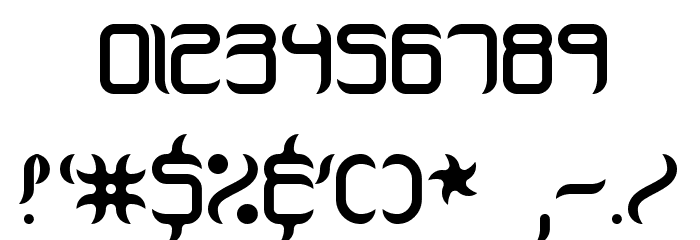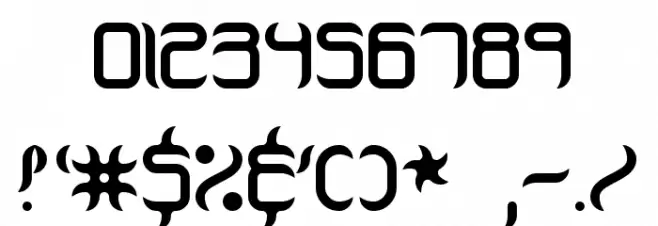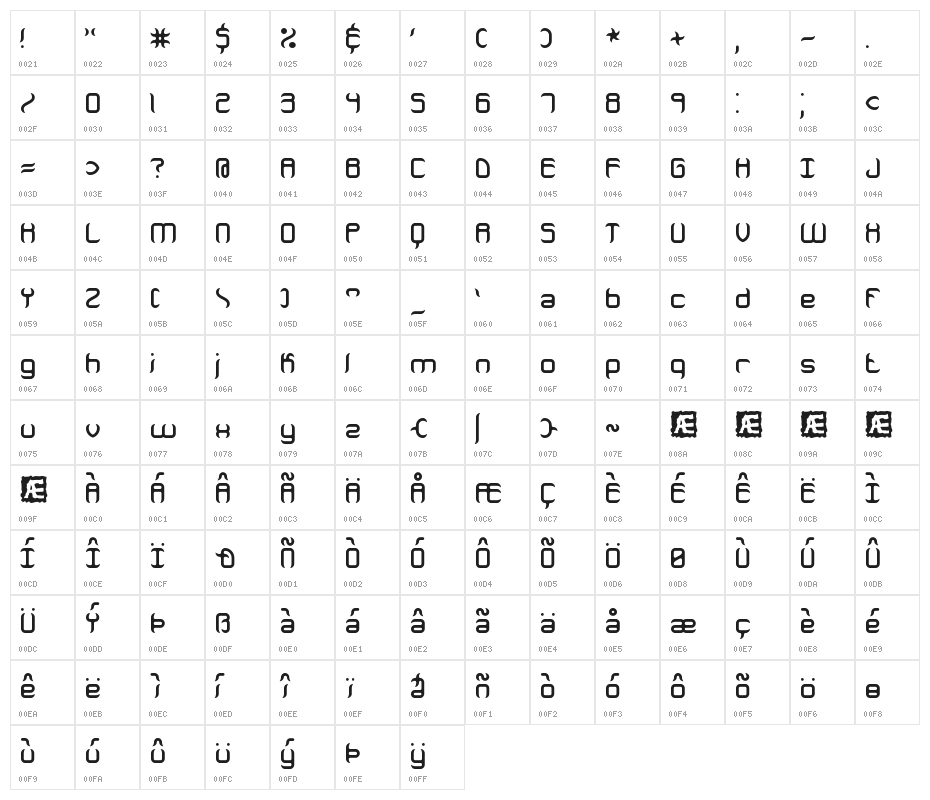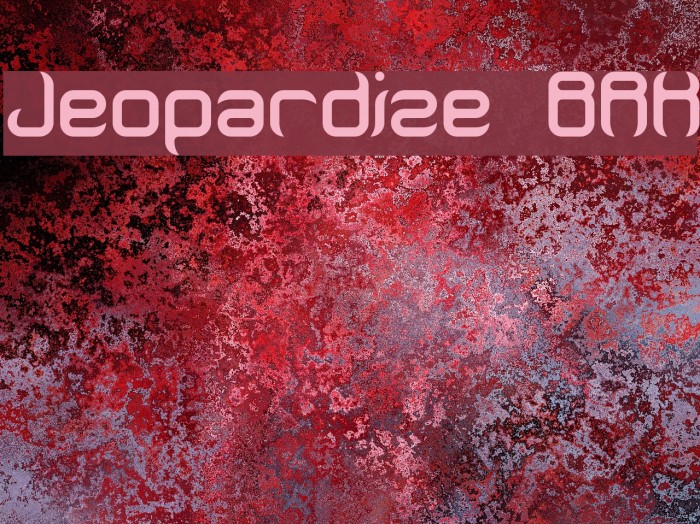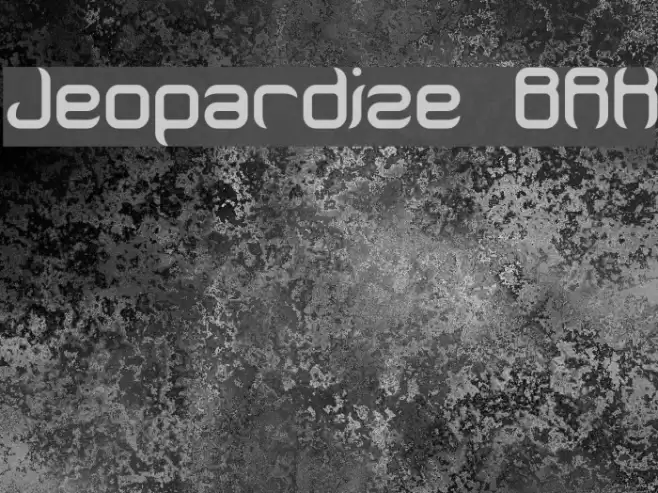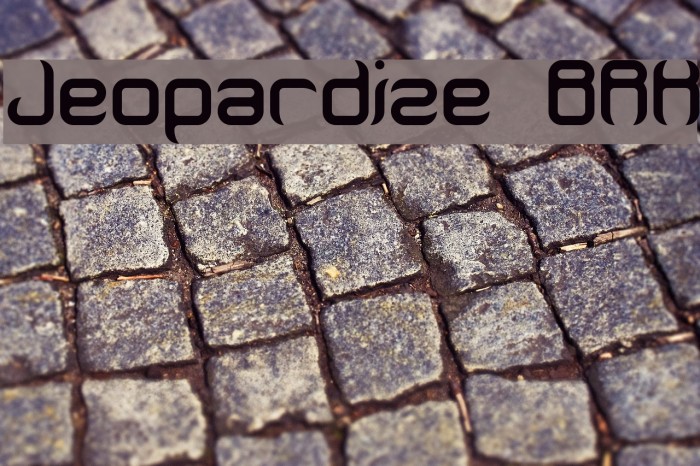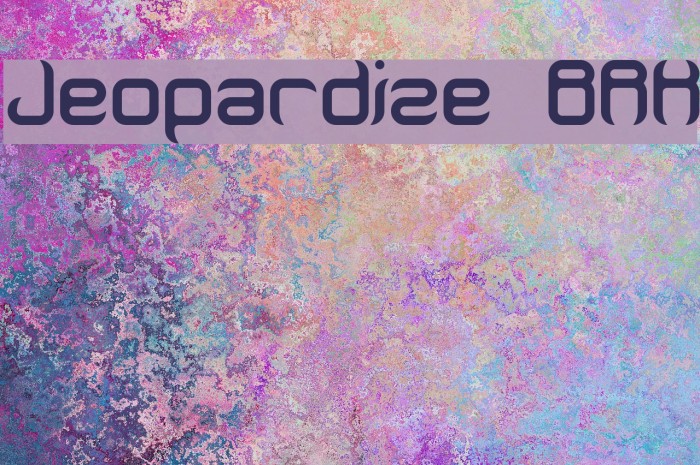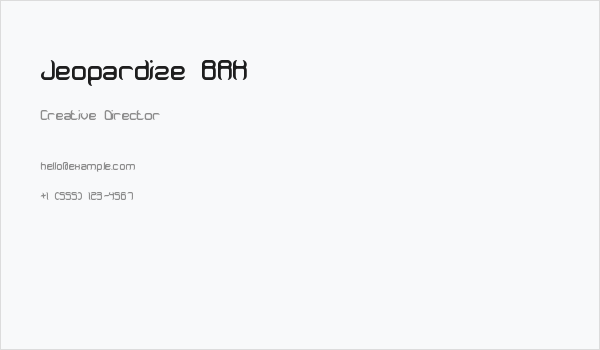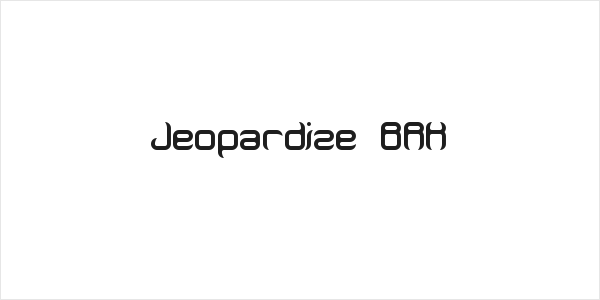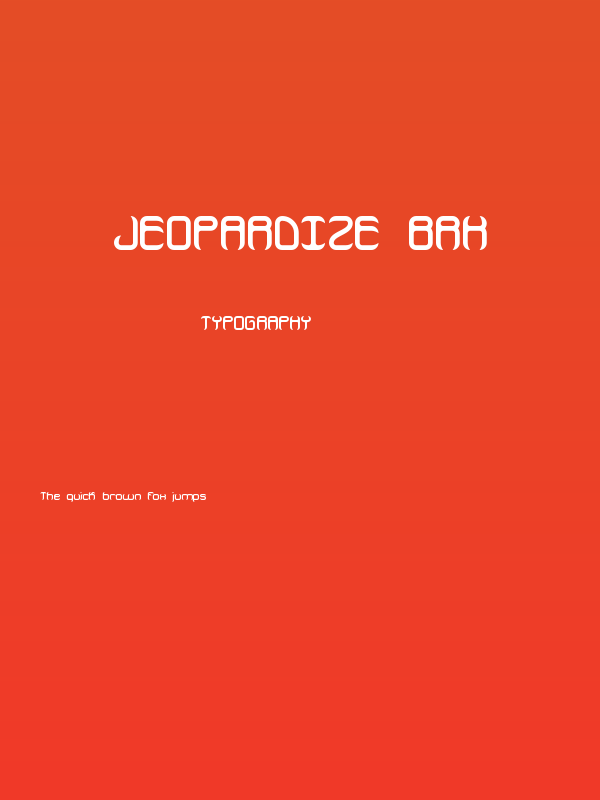
Jeopardize BRK Font
Jeopardize BRK Description
This font features a unique, futuristic design with rounded edges and a bold presence. The characters are distinct with a slightly condensed form, giving it a modern and sleek appearance. The uppercase letters have a uniform height and width, while the lowercase letters maintain a consistent style with subtle variations in curvature. The numerals are clear and easy to read, matching the overall aesthetic of the font. Special characters are creatively designed, adding to the font's distinctive look. This font is ideal for projects that require a modern and innovative touch.
| Proposed Projects | Ideal for tech branding, sci-fi posters, video game titles, and modern advertising. |